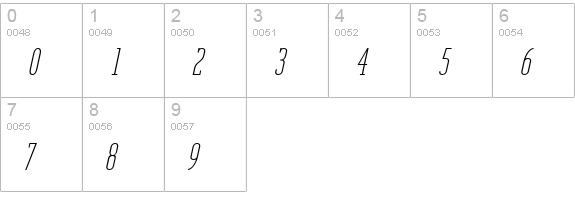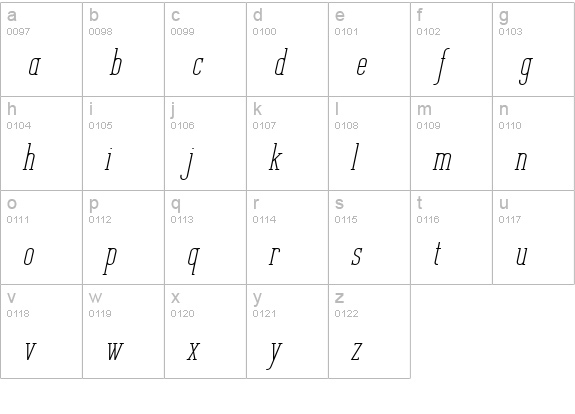
Unknown Caller BTN Oblique is a distinctive, italic variant in the Unknown typeface family \xE2\x80\x94 well suited to design and typography projects.
Unknown Caller BTN Oblique font is a modern and stylish typeface that exudes an air of mystery and intrigue. Its slanted and oblique design adds a unique touch to any design project, making it perfect for headlines, logos, posters, and more. This font captures attention with its bold and edgy look, making it ideal for creating eye-catching designs that demand to be noticed. Its sharp angles and sleek curves give it a contemporary and dynamic feel, making it suitable for a wide range of creative applications. Whether you're designing a magazine layout, a website, or a branding project, Unknown Caller BTN Oblique font is sure to make a lasting impression. It adds a touch of sophistication and sophistication to any design, elevating it to a new level of visual appeal. One of the best things about Unknown Caller BTN Oblique font is that it is available for free. Yes, you read that right - this incredible font can be downloaded for free at FontsMarket.com. This means that you can enjoy the benefits of this stunning typeface without breaking the bank. So why wait? Download Unknown Caller BTN Oblique font today and unleash your creativity. With its sleek and modern design, it will add a touch of elegance and uniqueness to your projects. Get ready to make a statement with this fantastic font that is freely available to download at FontsMarket.com.